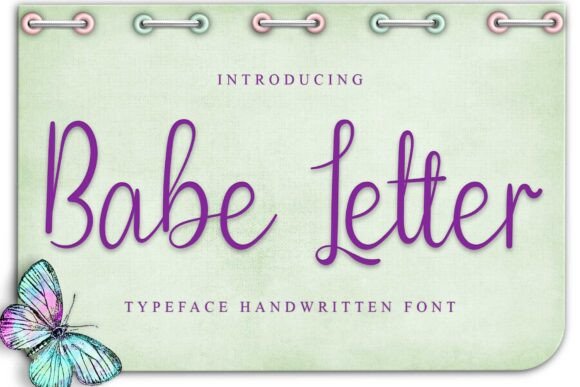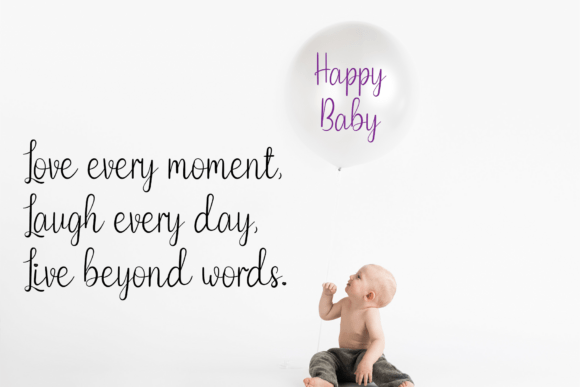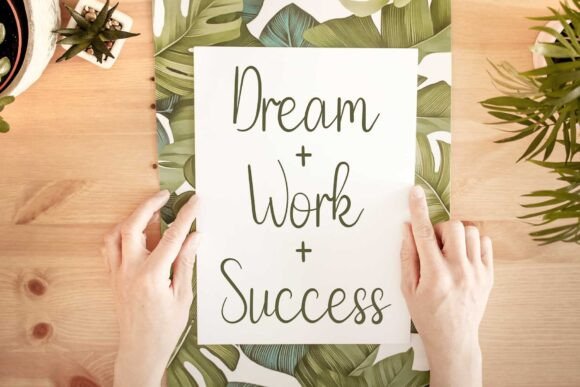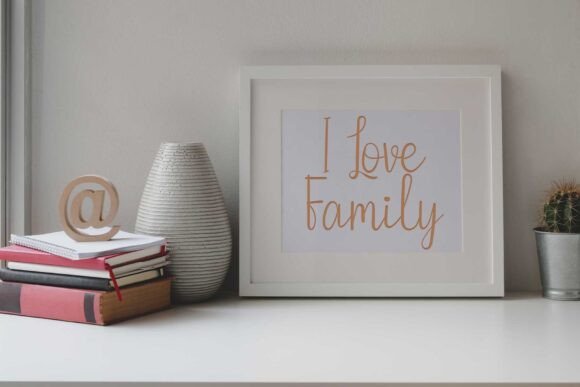
Babe Letter Font
About the Babe Letter Font
Make a bold statement with Babe Letter Font, a powerful and memorable font. Babe Letter is a unique and elegant font specially designed just for you. This font is made with a professional hand touch and is perfect for your projects. This font is very suitable for use in your work projects, all greeting cards from wedding invitation cards, birthdays, all types of parties.
Babe Letter’s elegant, handcrafted style makes it ideal for headlines, short text blocks on invitations, or branding elements requiring a touch of sophistication. It works particularly well for projects with a feminine or romantic aesthetic, such as wedding stationery, beauty product packaging, or fashion-related materials. However, its decorative nature makes it less suitable for body text or UI elements where readability is paramount.
Consider pairing Babe Letter with a clean sans-serif like Lato for a modern contrast, or a classic serif such as Garamond for a more traditional feel. For a playful touch, a script font with a similar level of refinement could also work well. Avoid pairing it with overly bold or geometric sans-serifs, as this might clash with its delicate character.
The overall personality of Babe Letter is sophisticated and refined, yet approachable. Its hand-drawn quality adds a touch of warmth without sacrificing elegance.